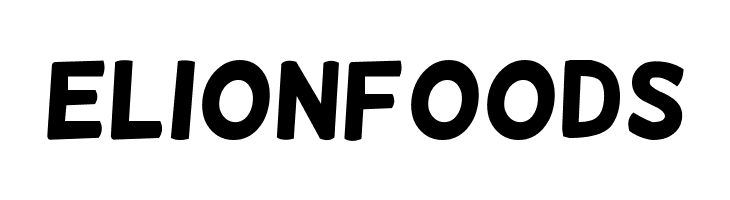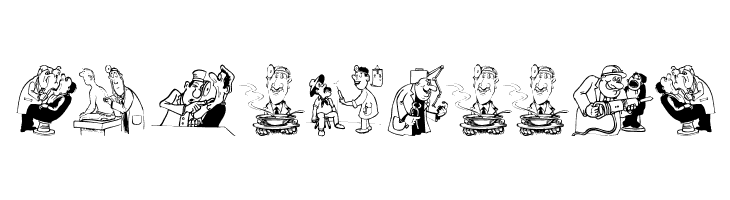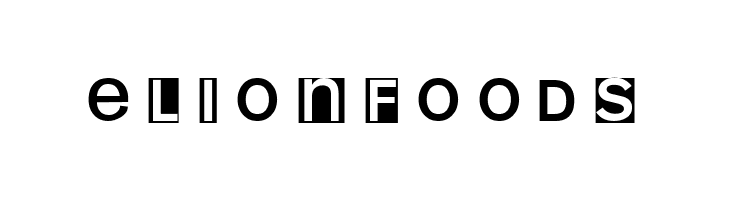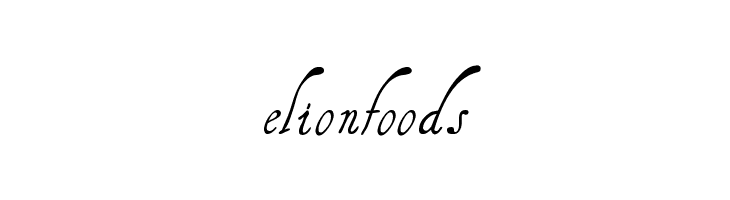
• HDF
A bold, geometric font with a modern, industrial feel.
• Heart Things
• HelenaScript ES
• HelloDoc
Cartoonish, medical-themed decorative font with hand-drawn illustrations.
• HelloSirPeter
Abstract faces instead of a traditional font.
• HelloweeniA
A bold, playful font with a spooky Halloween theme.
• Helsinki
A bold, rounded font with a playful and modern style.
• HenryMorganHand
An elegant and ornate script font with flowing, decorative letterforms.
• HEretica
A bold, spiky display font with an edgy, dynamic style.
• HEretica Oblique
A bold, spiky, and dynamic decorative font with high contrast.